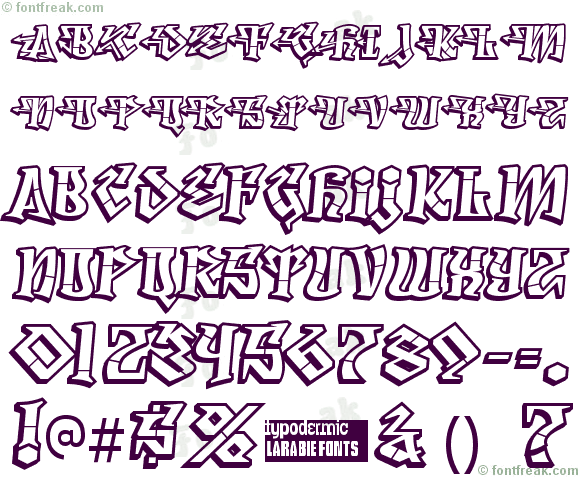
Degrassi
About Degrassi
The Degrassi font by Ray Larabie is a striking display typeface that captures attention with its unique blend of urban flair and artistic expression. Released in 2001 and updated in 2004, this freeware font features bold, angular letterforms that evoke a sense of movement and dynamism. The strokes are thick and pronounced, with varying weights that add depth and contrast, while the spacing is thoughtfully designed to maintain readability even in larger formats. The decorative elements, including sharp edges and exaggerated curves, contribute to its contemporary style, making it a perfect choice for projects that require a bold statement.
Degrassi is well-suited for a variety of applications, including movie posters that aim to convey excitement and energy, streetwear branding that seeks to resonate with a youthful audience, and music album covers that require a distinctive visual identity. Additionally, its unique characteristics make it an excellent choice for graphic novels and comic book titles, where the font can help convey the story's tone. Small business owners looking to create an edgy restaurant menu or promotional materials will also find this font invaluable.
The target audience for the Degrassi font includes graphic designers seeking to add a modern touch to their work, content creators aiming to engage their audience through eye-catching visuals, and anyone in the creative field looking for a font that stands out in a crowded market.
What sets the Degrassi font apart is its ability to blend artistic creativity with practicality, offering users a versatile typeface that enhances visual communication. For those interested in elevating their design projects, the Degrassi font free download presents an opportunity to infuse a touch of urban edge into any creative endeavor.